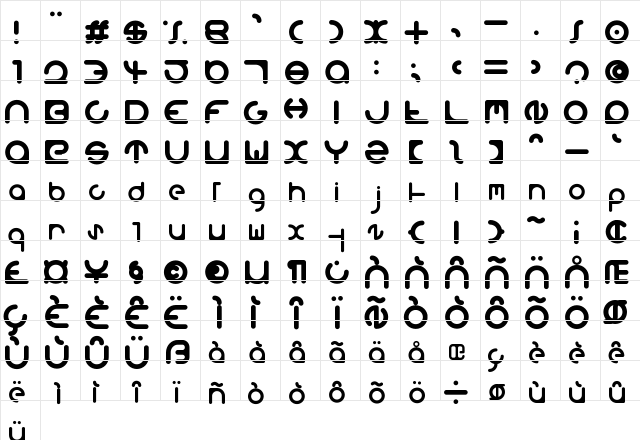
M150SimpleRoundFont Regular
Design Context for M150SimpleRoundFont Typeface
M150SimpleRoundFont uses gentle rounded endings to create a warm, inviting typographic personality — less corporate than geometric sans, more refined than playful display fonts.
Well-suited to UI design, mobile interfaces, and any brand that wants approachability without sacrificing clarity.
Font Pairing: Pairs well with a rounded or humanist sans for body copy, maintaining the friendly tone without relying on M150SimpleRoundFont to carry extended reading.
Pro Tip: Use M150SimpleRoundFont for UI elements, app interfaces, and anywhere a friendly, approachable tone needs to be maintained without sacrificing clarity.